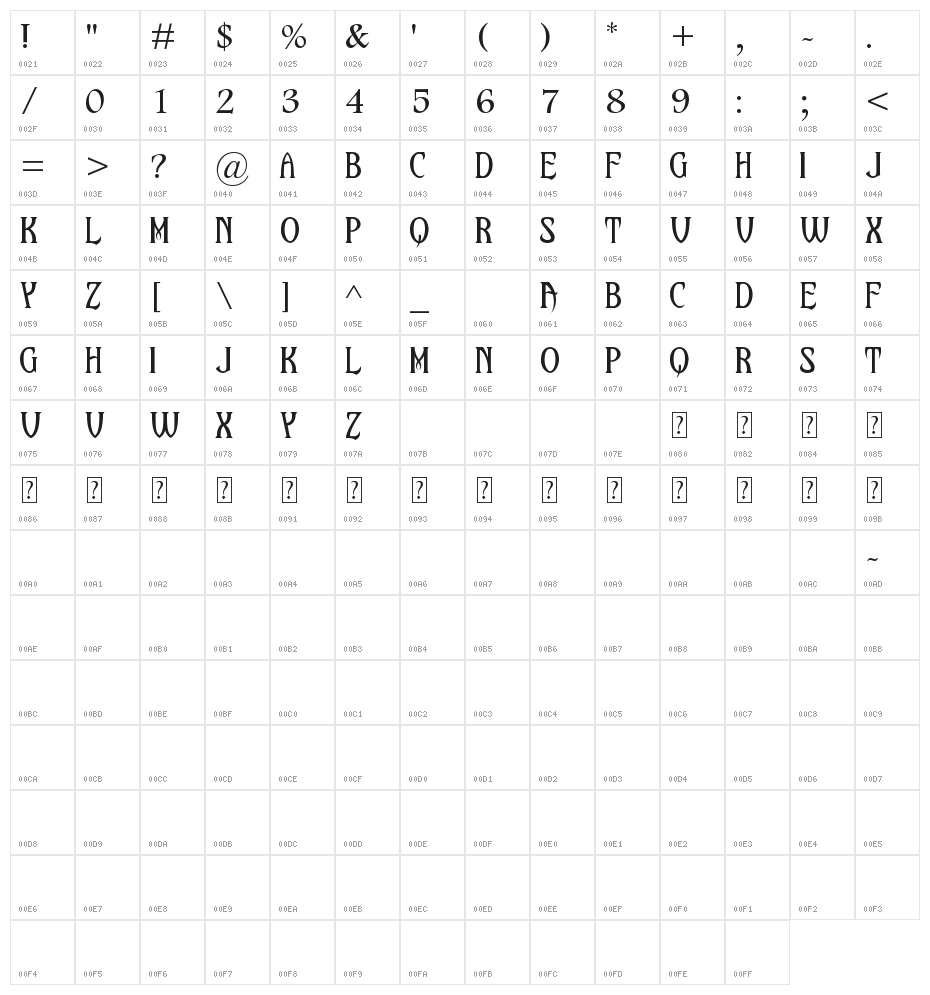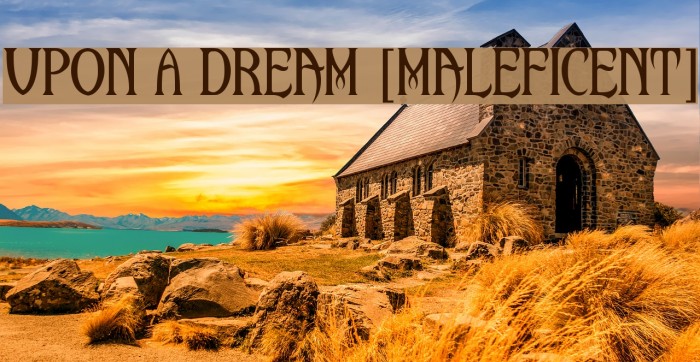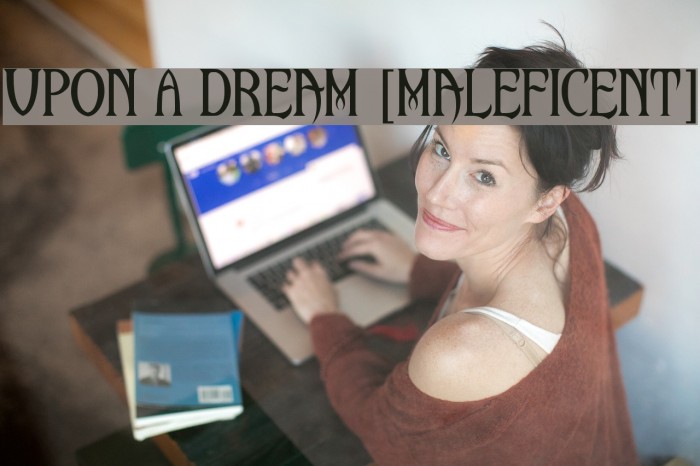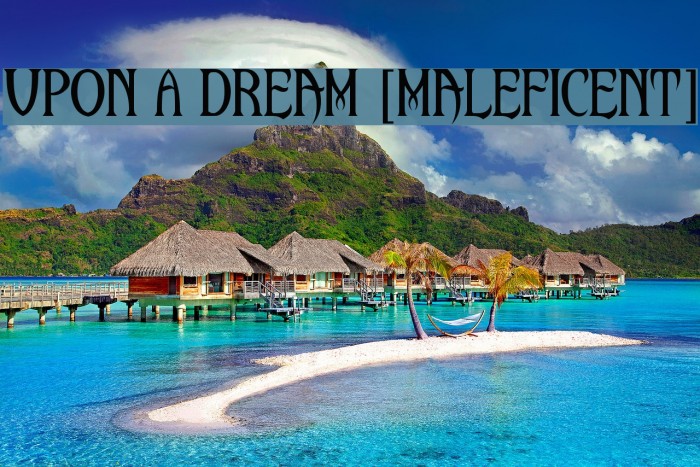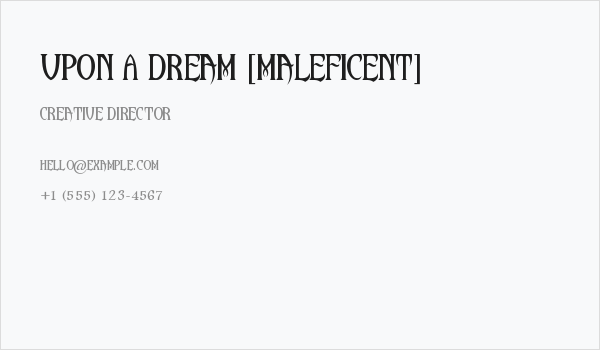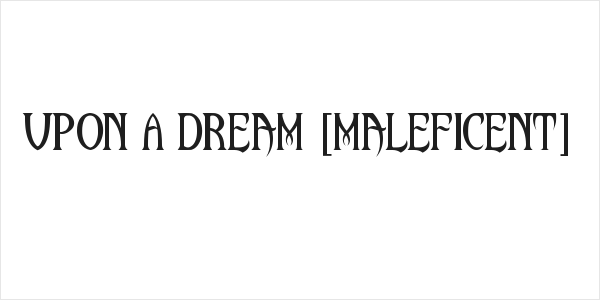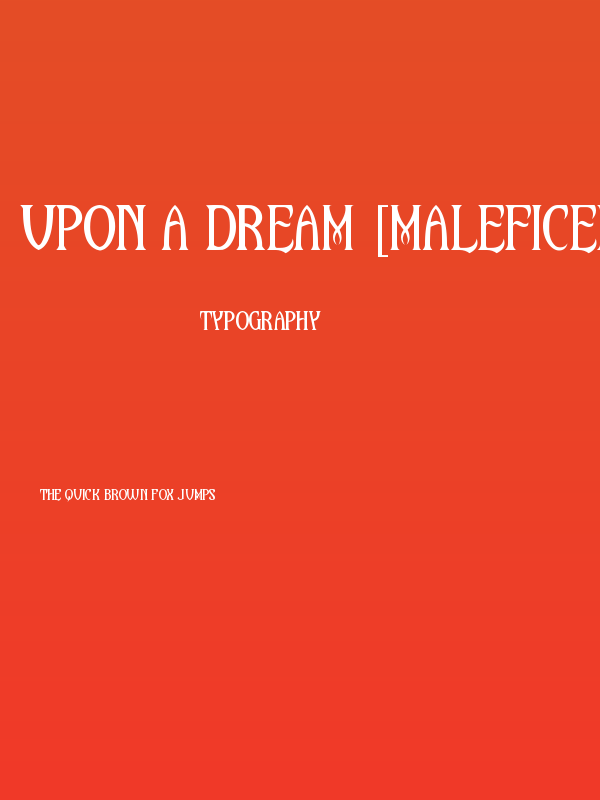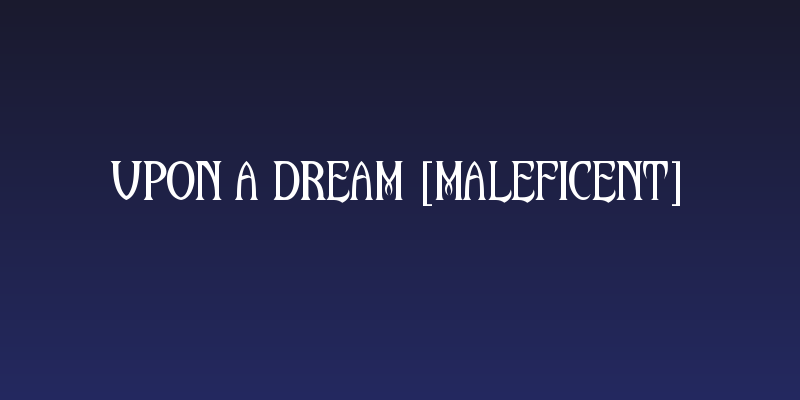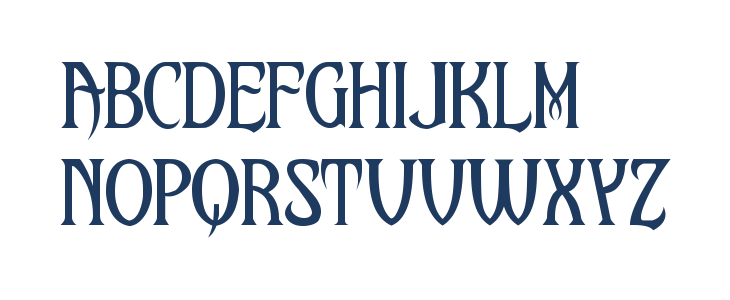
Upon A Dream [Maleficent] Font
Upon A Dream [Maleficent] Description
This font features a dramatic and enchanting style, reminiscent of fairy tales and fantasy themes. The characters are elegantly elongated with sharp, pointed serifs that evoke a sense of mystery and magic. The uppercase letters are particularly striking, with unique embellishments that add a touch of whimsy. The lowercase letters maintain the same enchanting quality, ensuring consistency throughout. Numbers and special characters are designed to complement the overall aesthetic, making this font suitable for creative and imaginative projects.
| Overall Style | Fantasy, Enchanting, Dramatic |
| Proposed Projects | Ideal for fantasy book covers, movie posters, themed event invitations, and magical branding projects. |